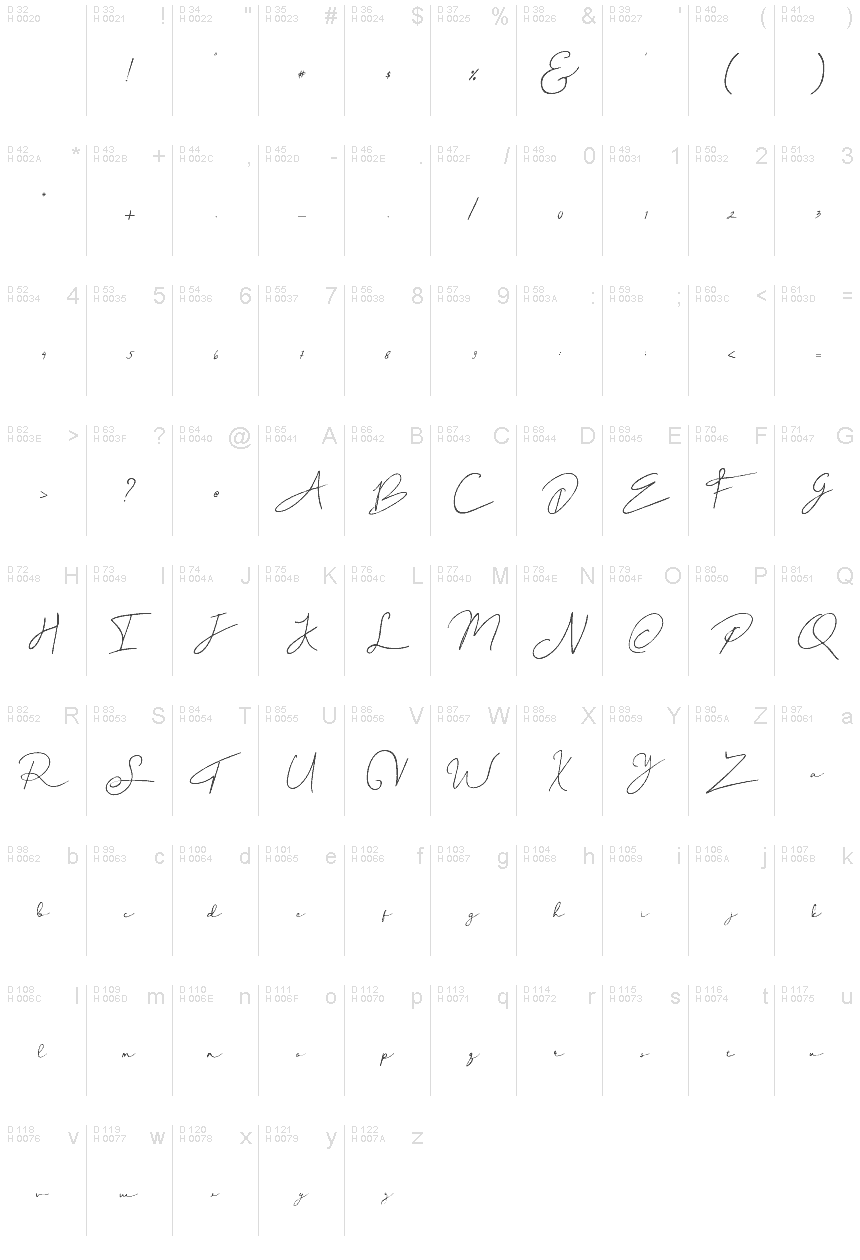
Peylon Viggo
Peylon Viggo font by madeDeduk is an elegant light in weight handwritten signature font. The characters are designed with an organic feel to copy the fluidity of regular handwriting, thus making it sophisticated yet easy to read. Its romantic appearance makes its use in both classic and contemporary projects sensible for high-impact results which make a memorable statement.